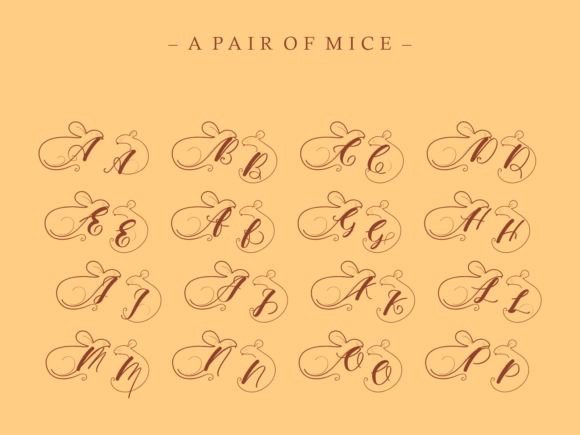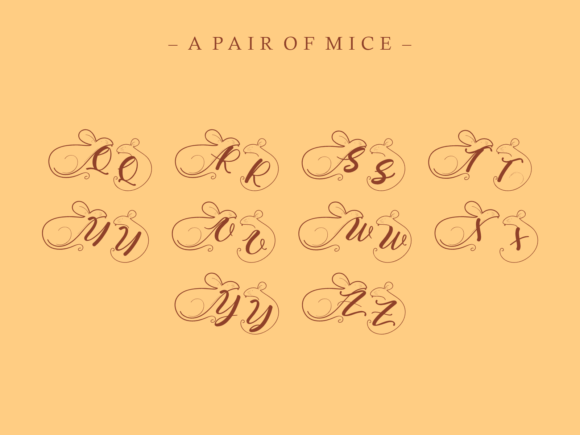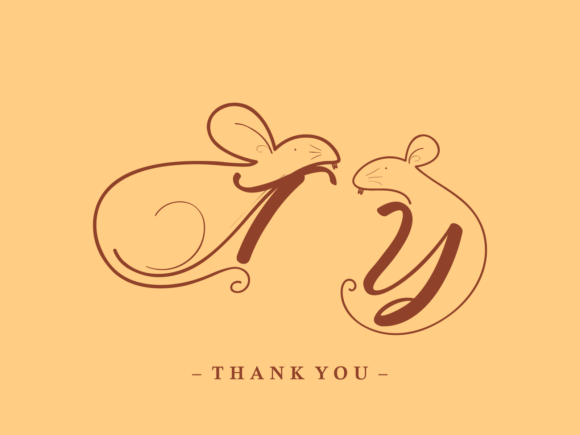
Unleash Your Creativity with A Pair of Mice Font
You’ve got that moment when the creative juices start flowing – you’re brainstorming ideas, scribbling down notes, and envisioning the perfect design. It’s exhilarating, isn’t it? But sometimes, it’s the smallest details that can make all the difference. That’s where A Pair of Mice Font comes in – a uniquely designed decorative font that can elevate your creative ideas to new heights.
A Pair of Mice Font is more than just a font – it’s a statement piece that adds a touch of personality to your designs. Whether you’re a seasoned designer or just starting out, this font is a valuable addition to your toolkit. Its masterful design makes it perfect for a wide range of applications, from logos and branding to digital art and typography.
- Unique Characteristics: Features a whimsical and playful design, perfect for children’s books, educational materials, and other projects requiring a lighthearted tone.
A Pair of Mice Font is a delightful and whimsical font designed for those who love a touch of playfulness in their typography. Here are some of its standout features: ✨
- Unique and Quirky Design – The font’s mouse-inspired design is not only adorable but also adds a fun touch to any text.
- Extensive Character Set – A Pair of Mice Font includes a wide range of characters, including uppercase and lowercase letters, numbers, and punctuation marks.
Overall, A Pair of Mice Font is a charming and creative font that’s perfect for designers looking to add a playful touch to their projects. While it may have some limitations, its unique design and high-quality rendering make it a great choice for the right projects.
To get the most out of the A Pair of Mice Font, use it in combination with bold or italic text to create visual interest. You can also experiment with different font sizes and colors to create a unique design aesthetic.
The A Pair of Mice Font is perfect for:
- Cartoon-style graphics
- Whimsical branding